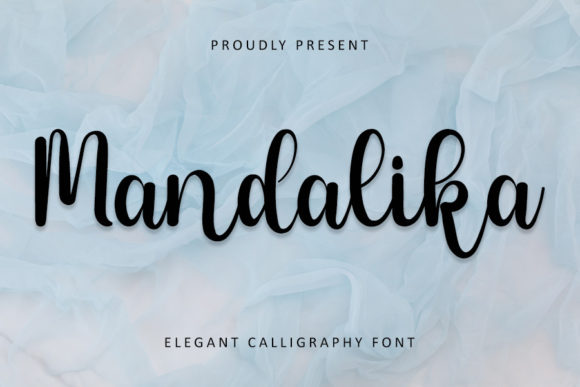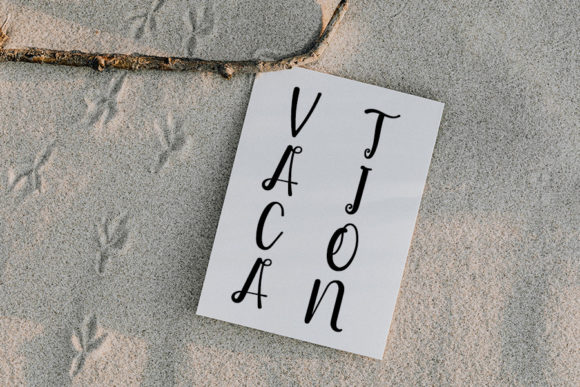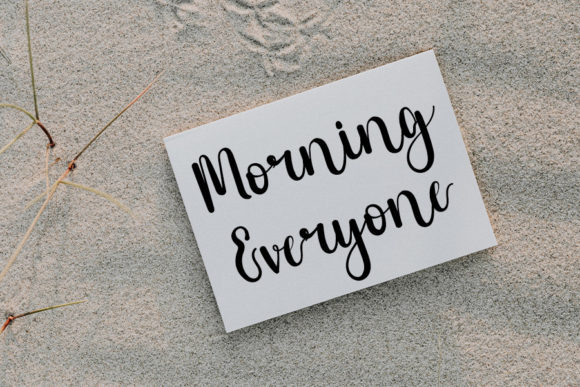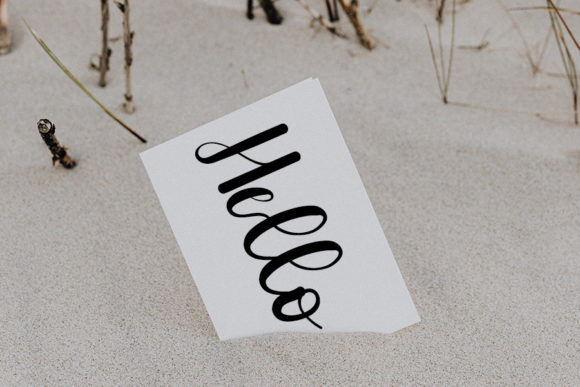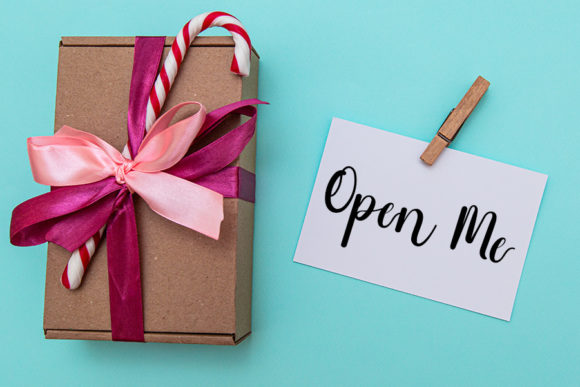
About Mandalika Font
Mandalika is a distinct handwritten font with a contemporary atmosphere and impeccable form, inspired by a timeless classic calligraphy. It will look outstanding in a wide range of contexts.